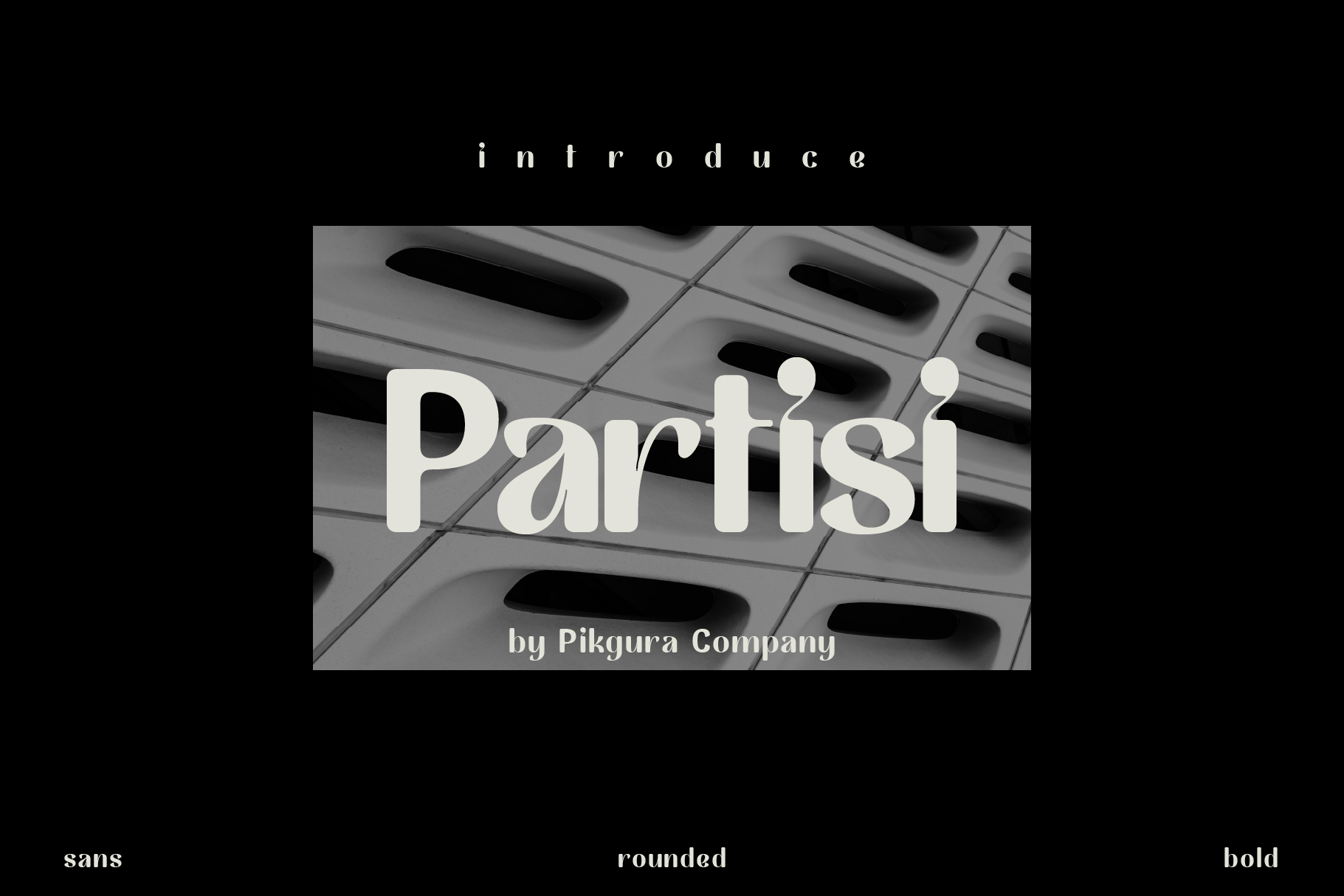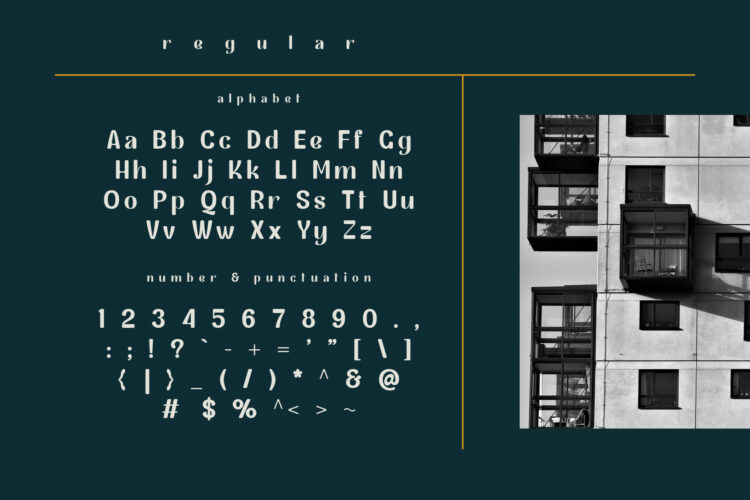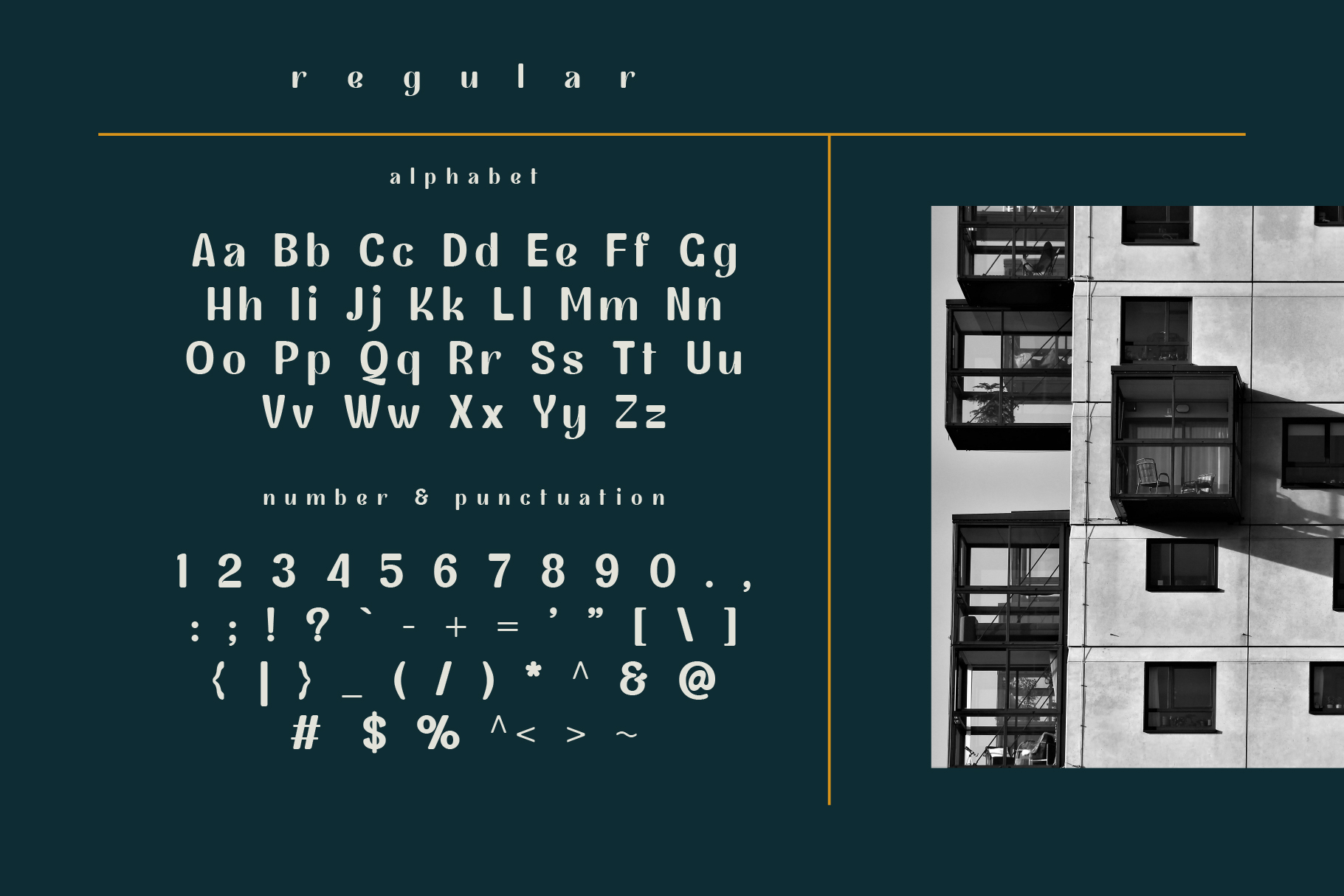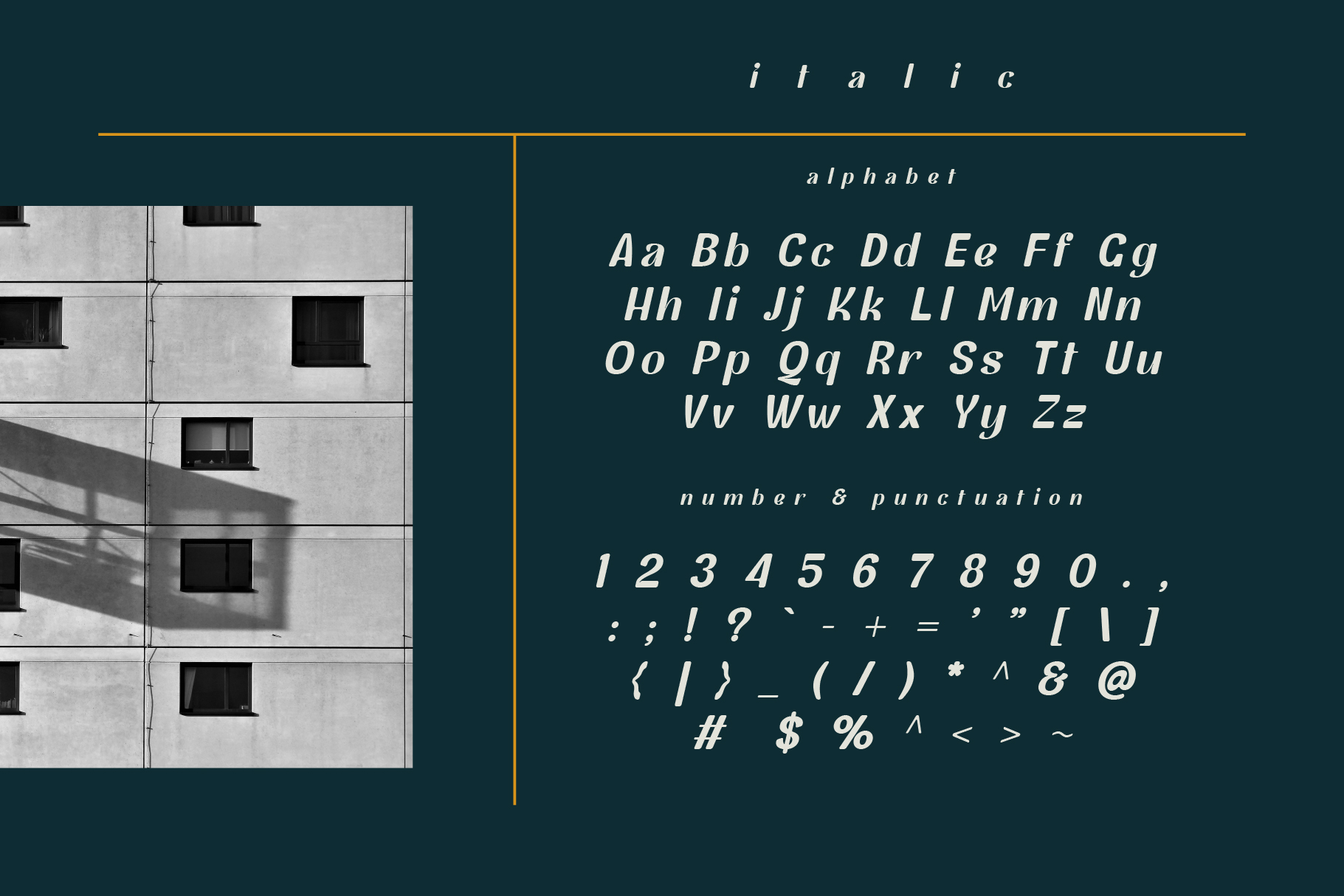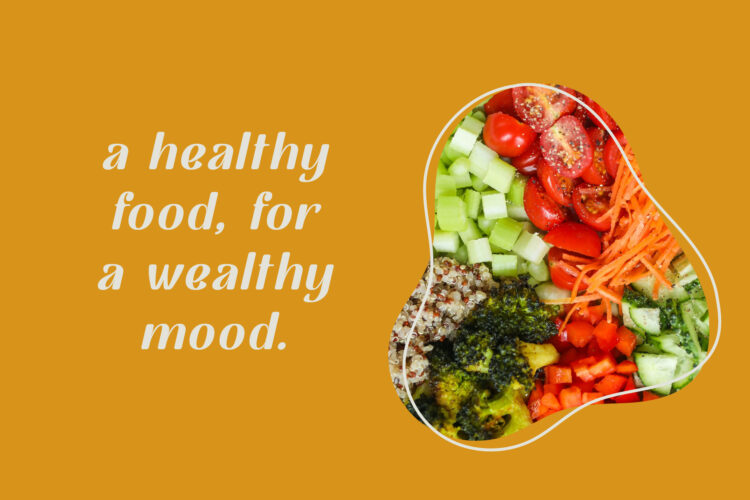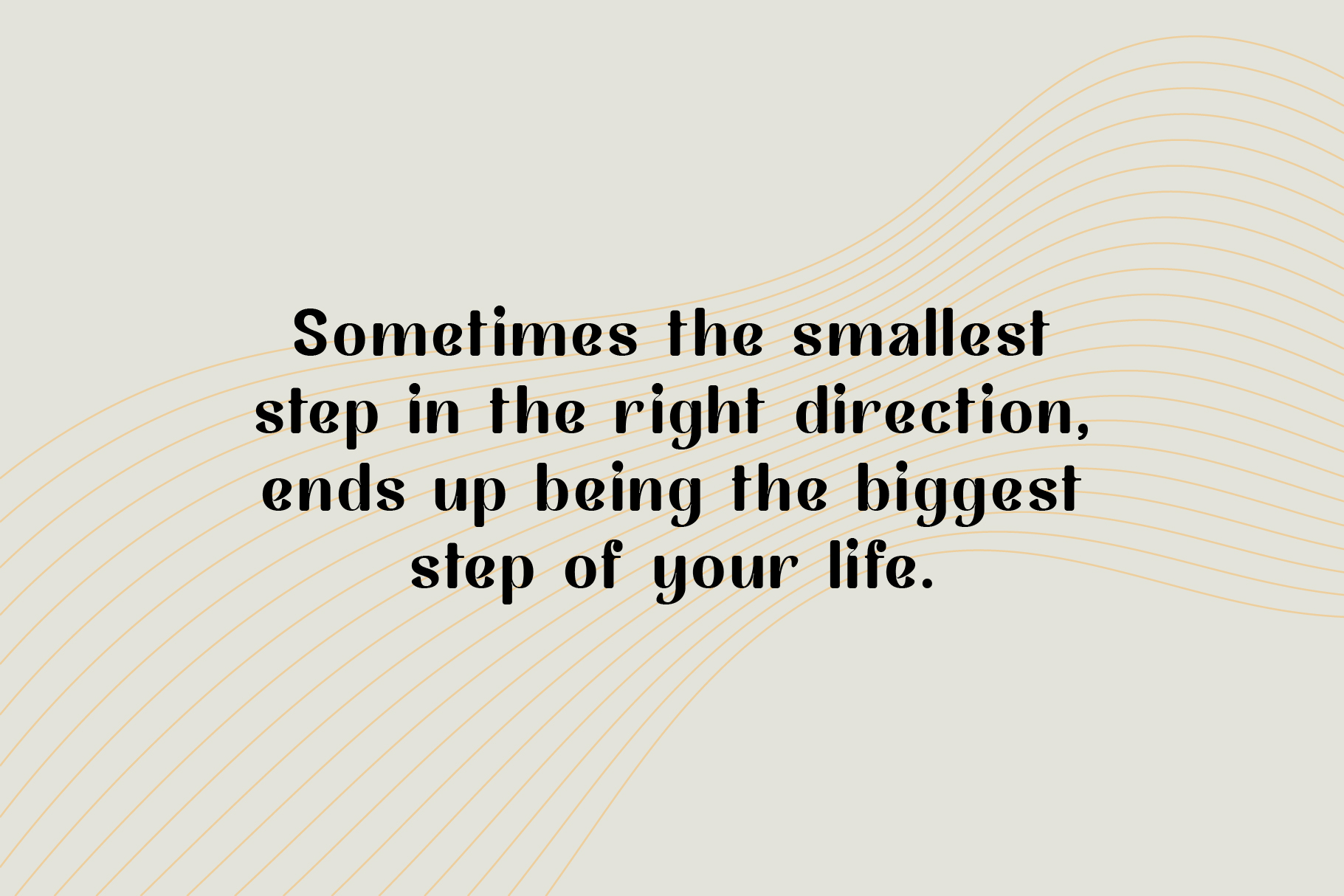
Partisi is a bold, rounded sans serif font with a modern, playful personality. Its thick lines and smooth edges create a friendly and approachable look, making it ideal for designs that need to stand out while staying warm and engaging.
This font works perfectly for headlines, logos, posters, packaging, and more. Whether you’re designing for print or digital, Partisi adds a fun, stylish touch that captures attention without overwhelming the message.
It includes uppercase and lowercase letters, numbers, and basic punctuation. Available in OTF, TTF, and WOFF formats, Partisi is easy to use across all major design software and web platforms.